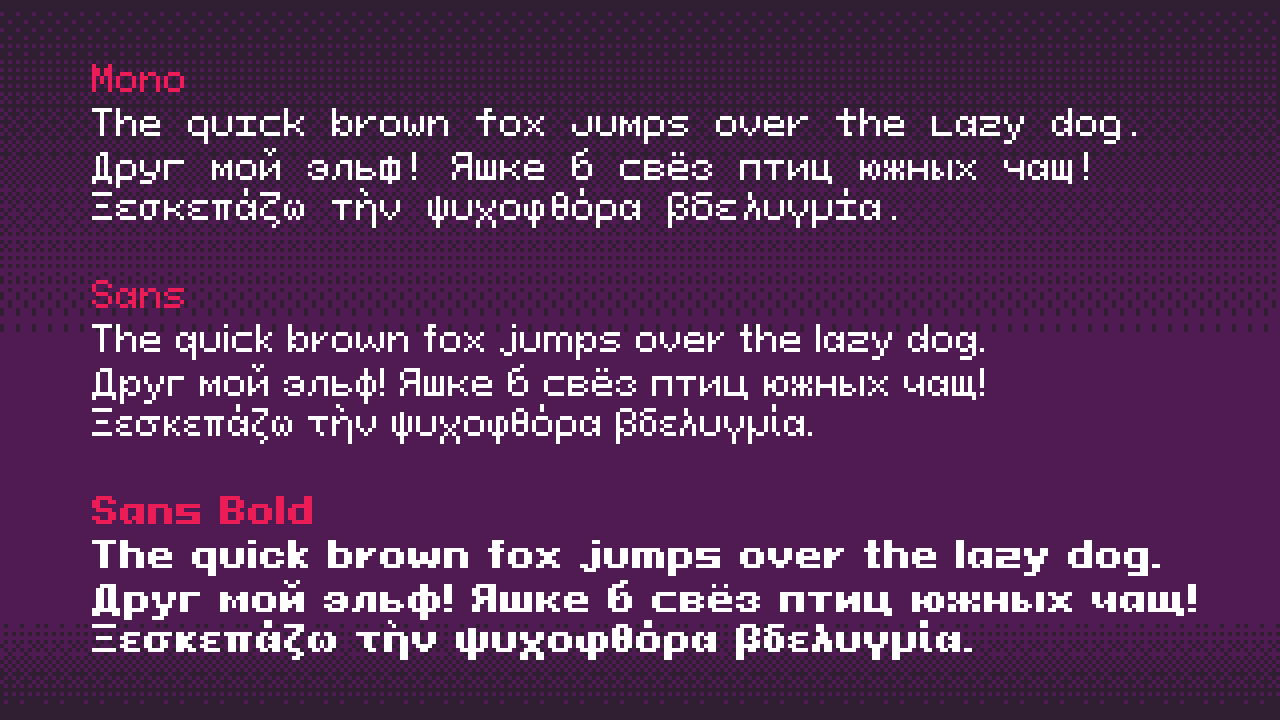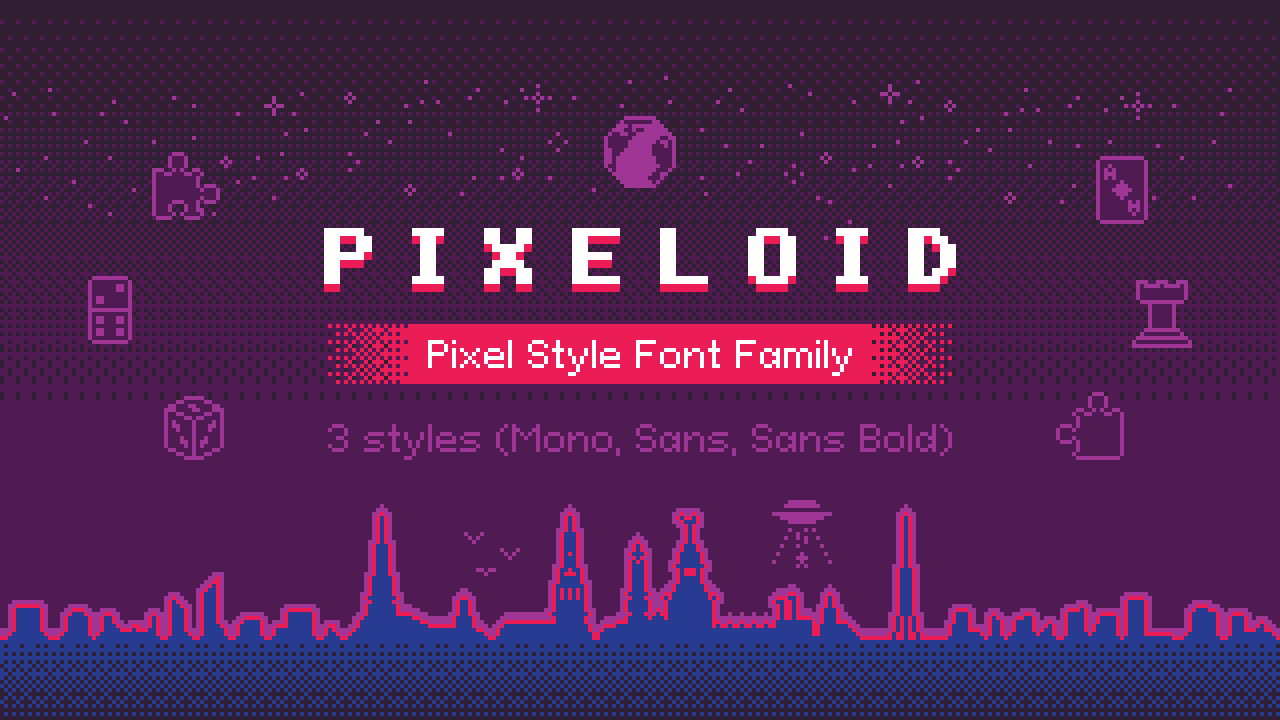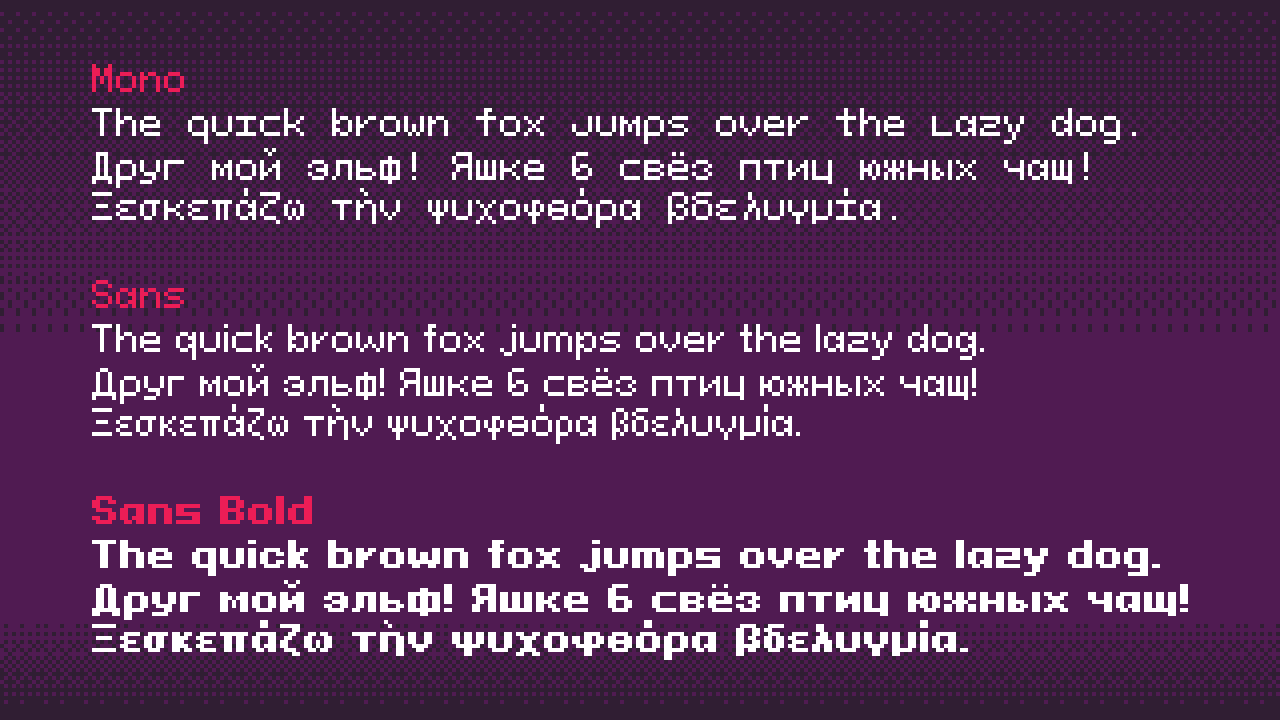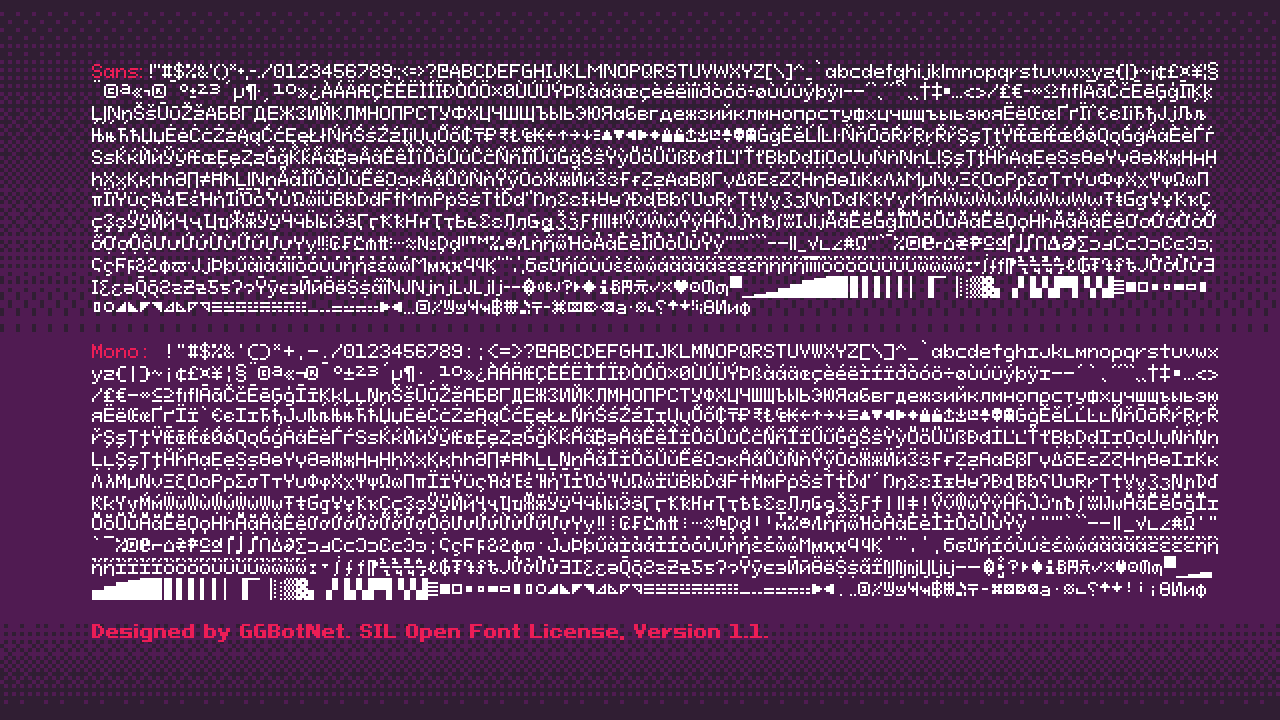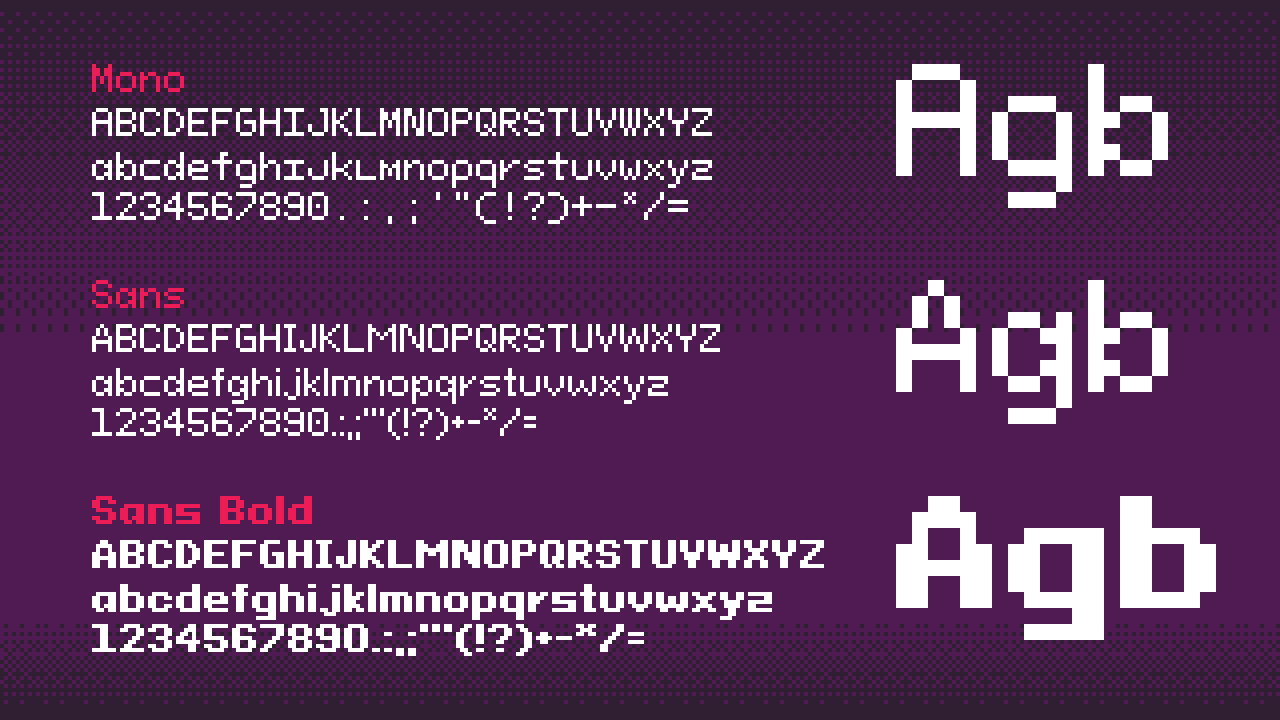
The font Pixeloid contains 3 styles (Mono, Sans, Sans Bold) and 1141 glyphs.
Support for 135 languages
Recommended settings for the font
Size: 9, 18, 36, 72, 144 px (pixel)
OpenType Features
Alternate Latin/Cyrillic "a". How to Use Stylistic Alternates in Godot, Inkscape, Photopea.
The font supports the following letters with tilde: ÃãẼẽĨĩСñÕõŨũṼṽỸỹ. Here is a live example.
There is not enough vertical space to clearly display Vietnamese accent marks, as there are only two pixels above the Latin capital letters.